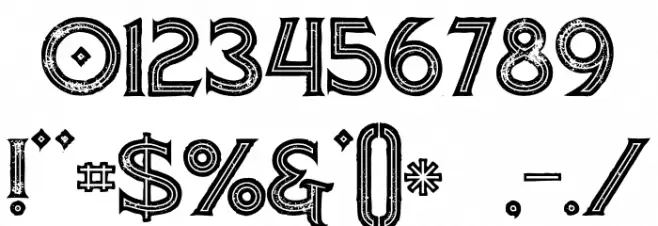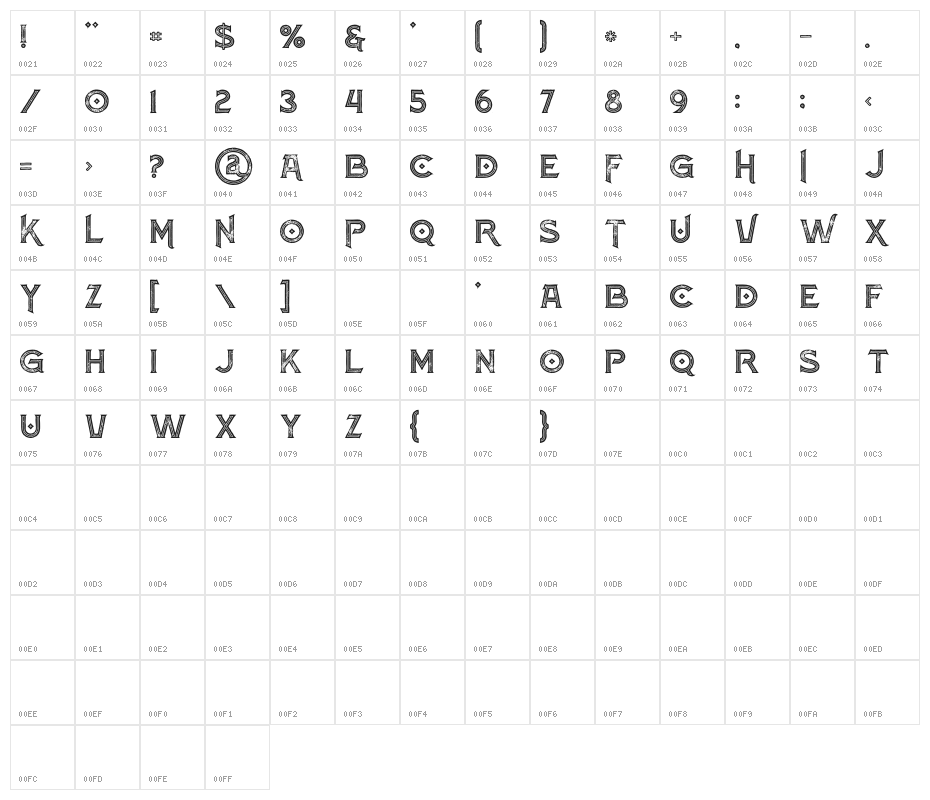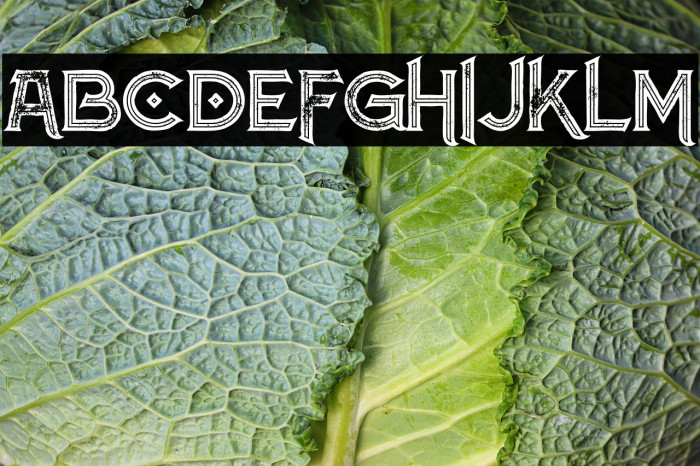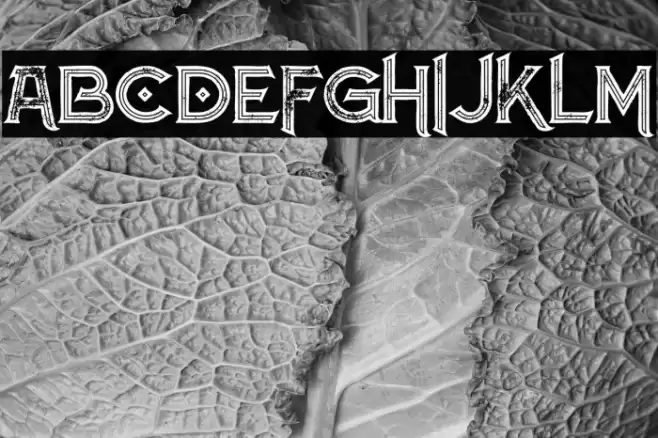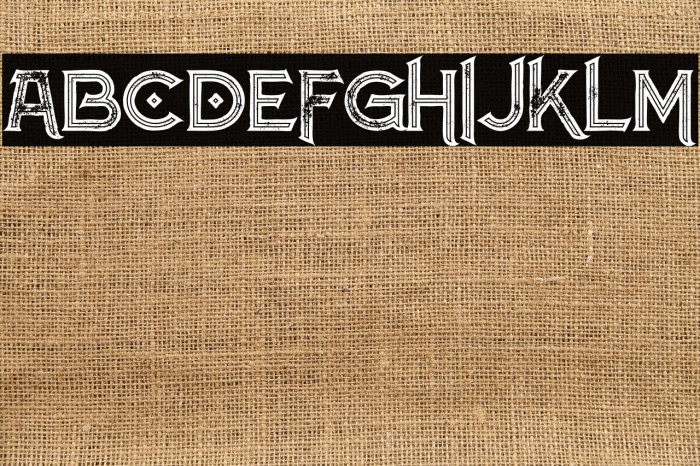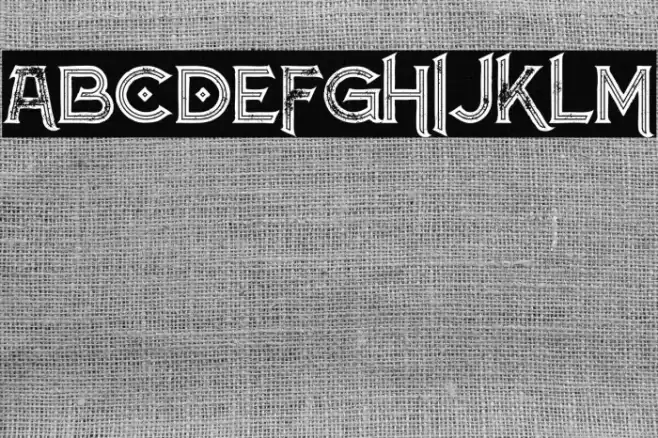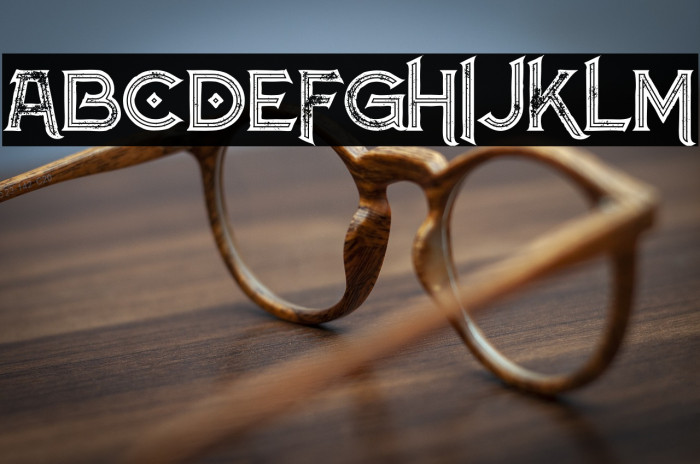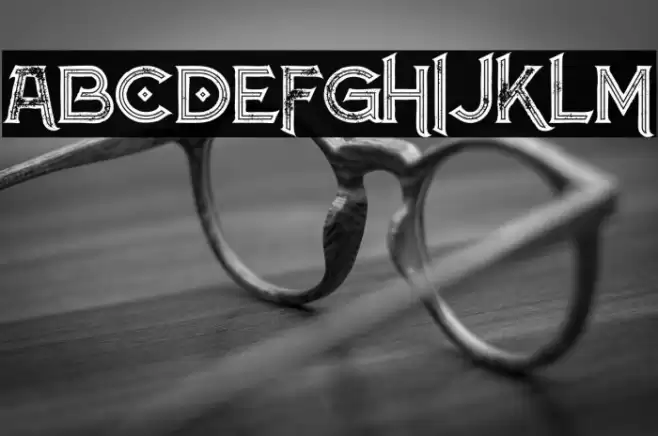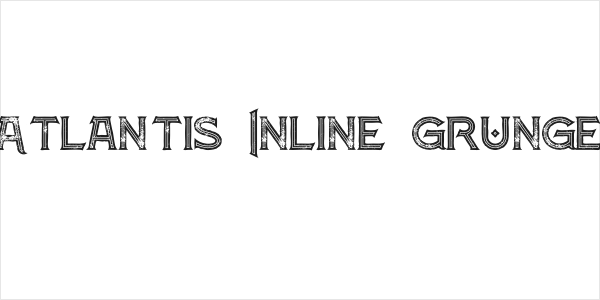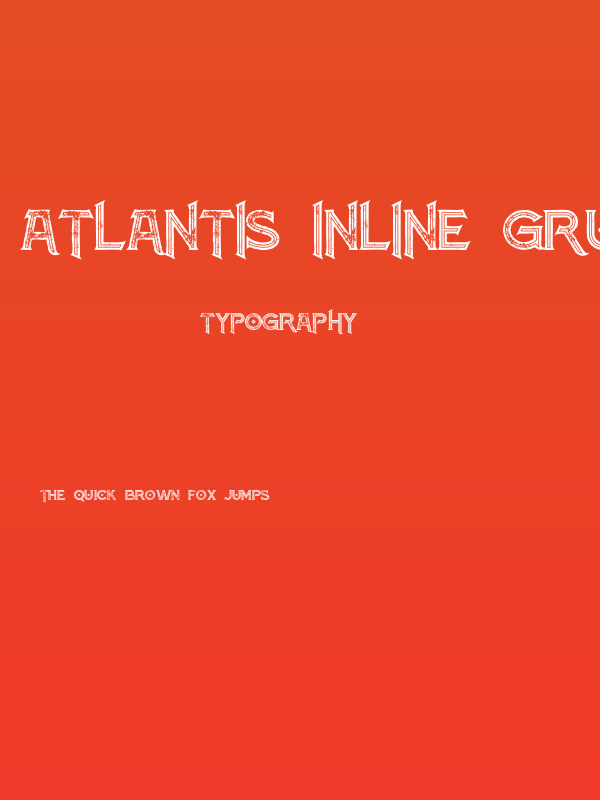
Atlantis Inline Grunge Font
Atlantis Inline Grunge Description
This font features a bold, distressed style with an inline design that gives it a grunge aesthetic. The uppercase and lowercase letters are designed with a rough texture, adding a vintage and worn look. The numbers and special characters follow the same distressed pattern, ensuring consistency across all characters. The font's unique style makes it stand out, with each character having a slightly irregular outline that enhances its rugged appearance. The inline detail within each letter adds depth and interest, making it suitable for eye-catching designs.
Overall StyleGrunge, Vintage
Proposed ProjectsIdeal for posters, album covers, branding for edgy or alternative products, and any design needing a vintage or grunge touch.